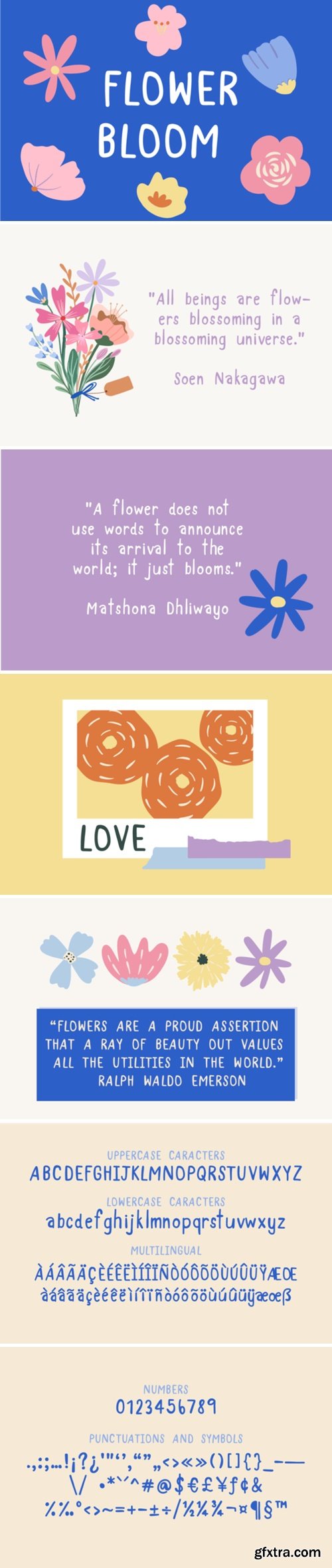
Flower Bloom Font
FLOWER BLOOM is a playful handwriting font. Perfect for creating posters, logos, greeting cards, and packaging. Decorating the illustration and so much more!